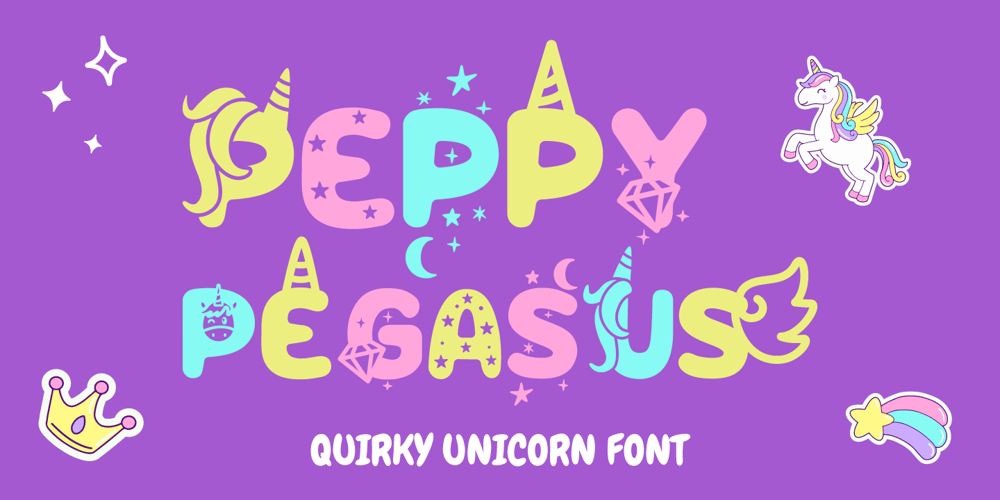
Peppy Pegasus Font Family was designed by Putra Novembria Candra Kusuma and published by Putracetol. Peppy Pegasus contains 12 styles and family package options. Peppy Pegasus – Quirky Unicorn Theme Font is a charming typeface designed to transport you to the whimsical world of unicorns, pegasus, and rainbows. This font showcases playful, rounded, and soft letterforms that add an element of delight to your designs. It’s versatile and can be used on its own or paired with any of its nine enchanting variations.With nine distinct variations inspired by pegasus, horses, horns, wings, rainbows, and magic, Peppy Pegasus is the perfect choice for children’s themes, crafting projects, and imaginative designs. It brings a sense of fun, playfulness, and a vibrant, colorful aesthetic to your creations.